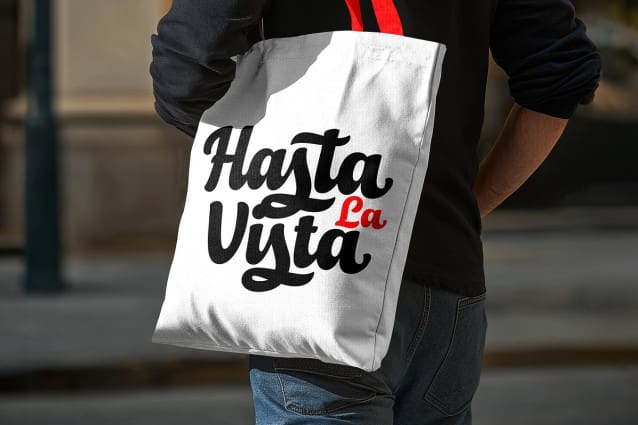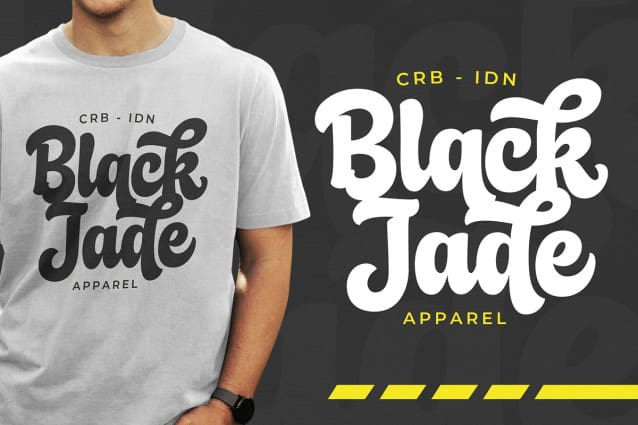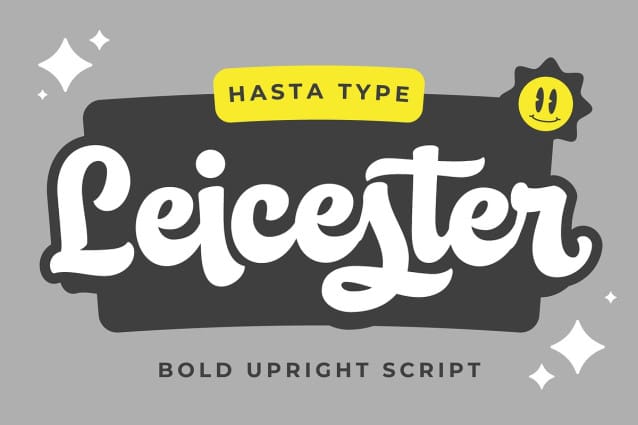
Leicester Script Font
Leicester Script Font is a bold and energetic script font that brings confidence and charm to your designs. With its upright style and smooth, flowing strokes, this typeface is ideal for logotypes, branding, packaging, and bold lettering projects.
Designed to stand out, Leicester Script is a go-to choice for bold script lovers, lettering enthusiasts, and designers looking to make an impact. Perfectly used for Logos, Branding, Packaging, Apparel, Merchandise and Social media graphics. Upgrade your designs with Leicester and make your brand unforgettable!